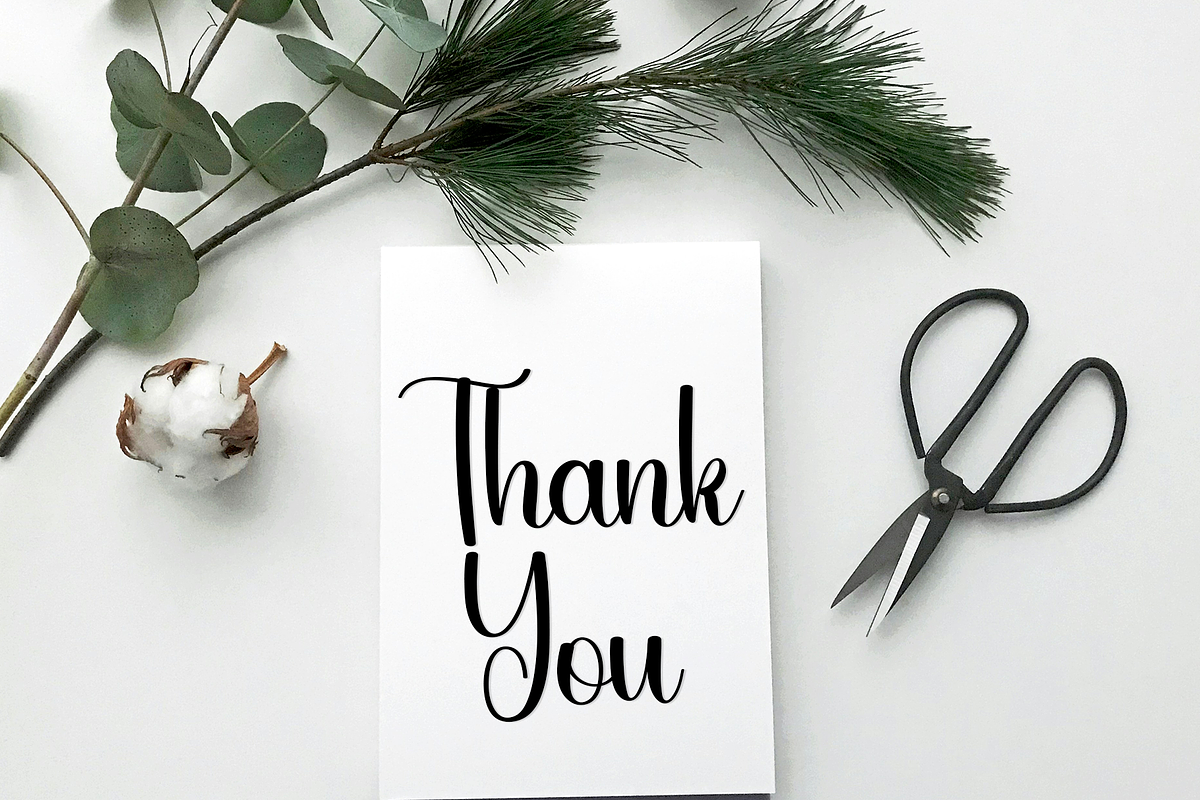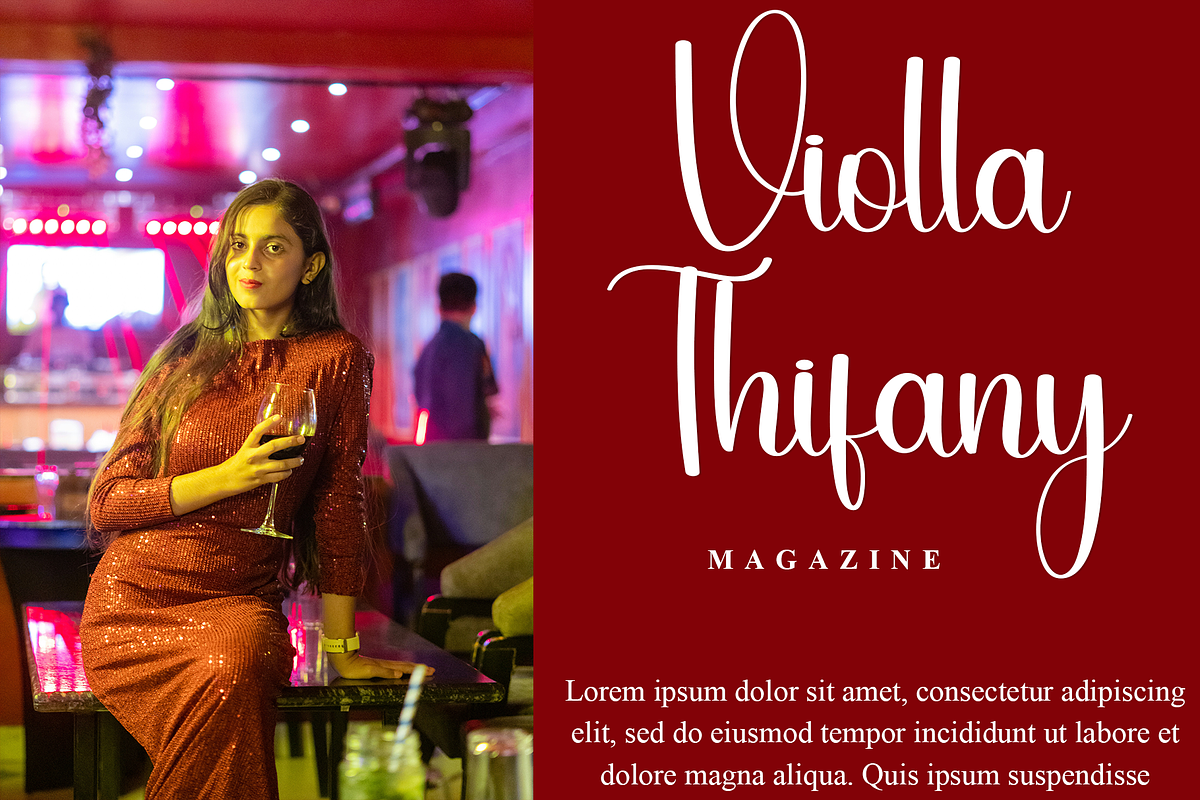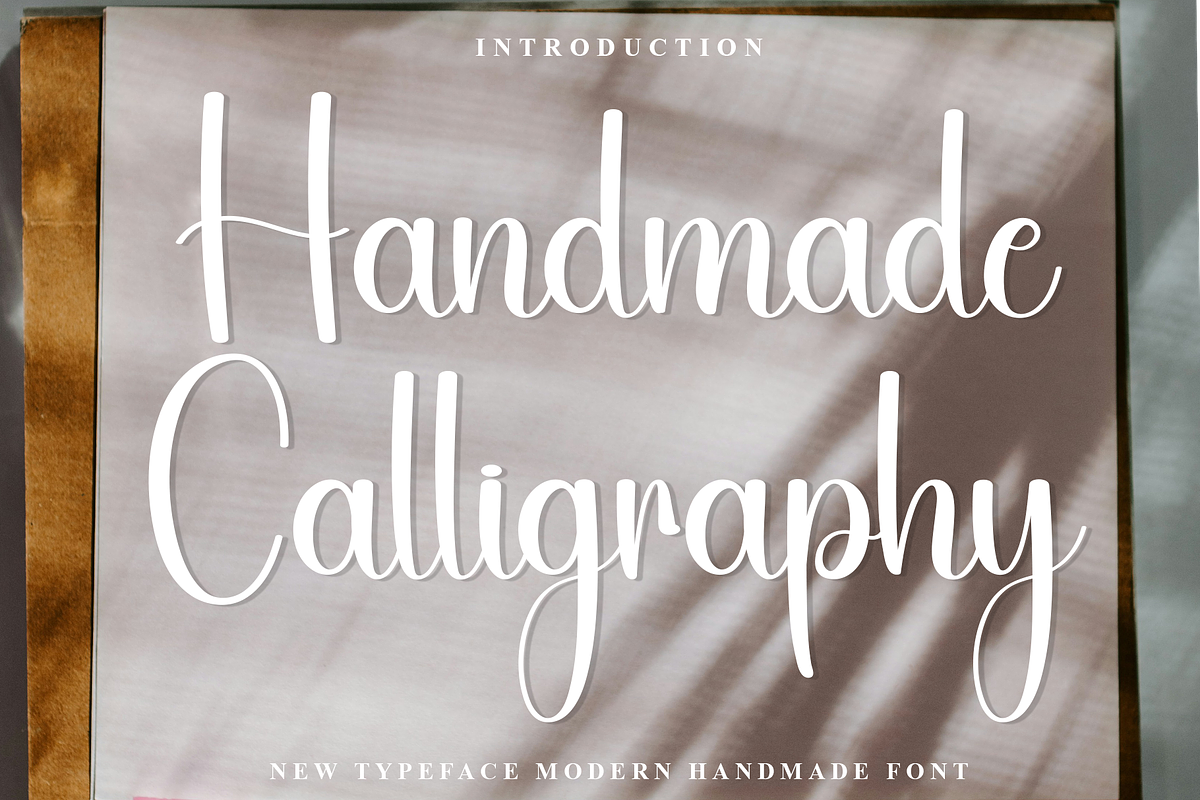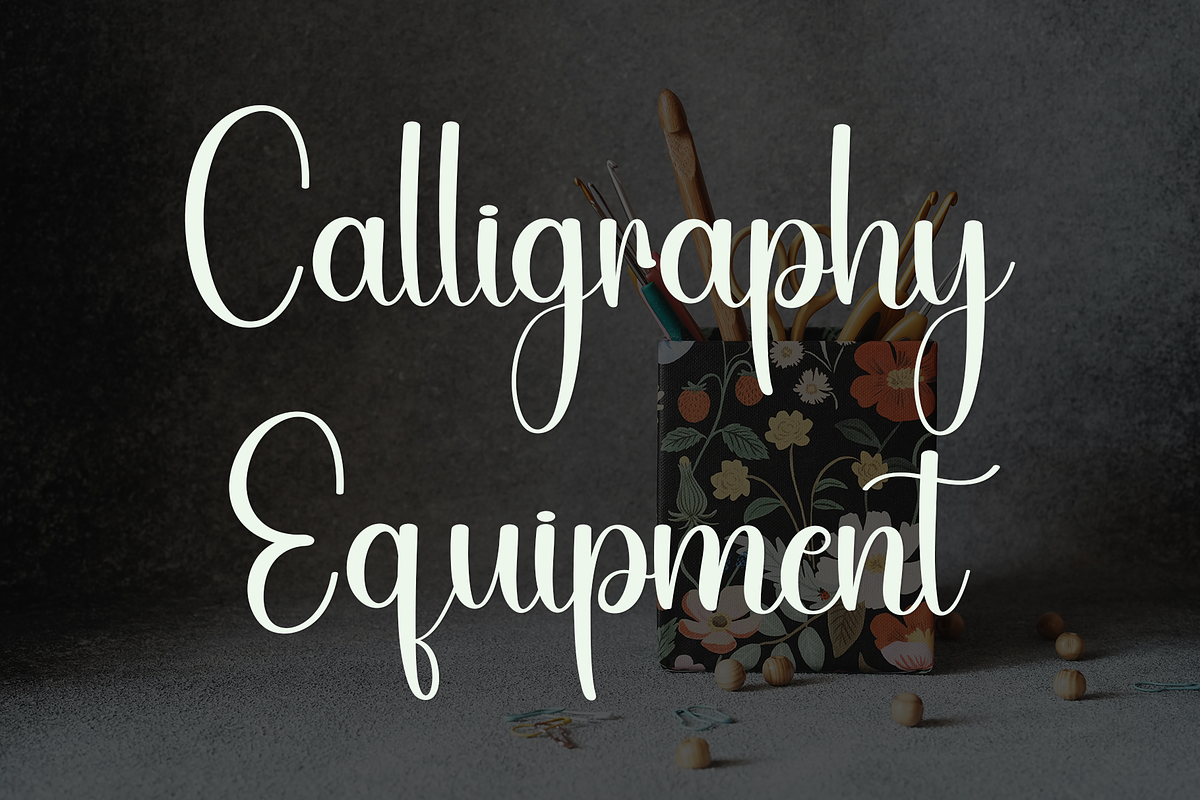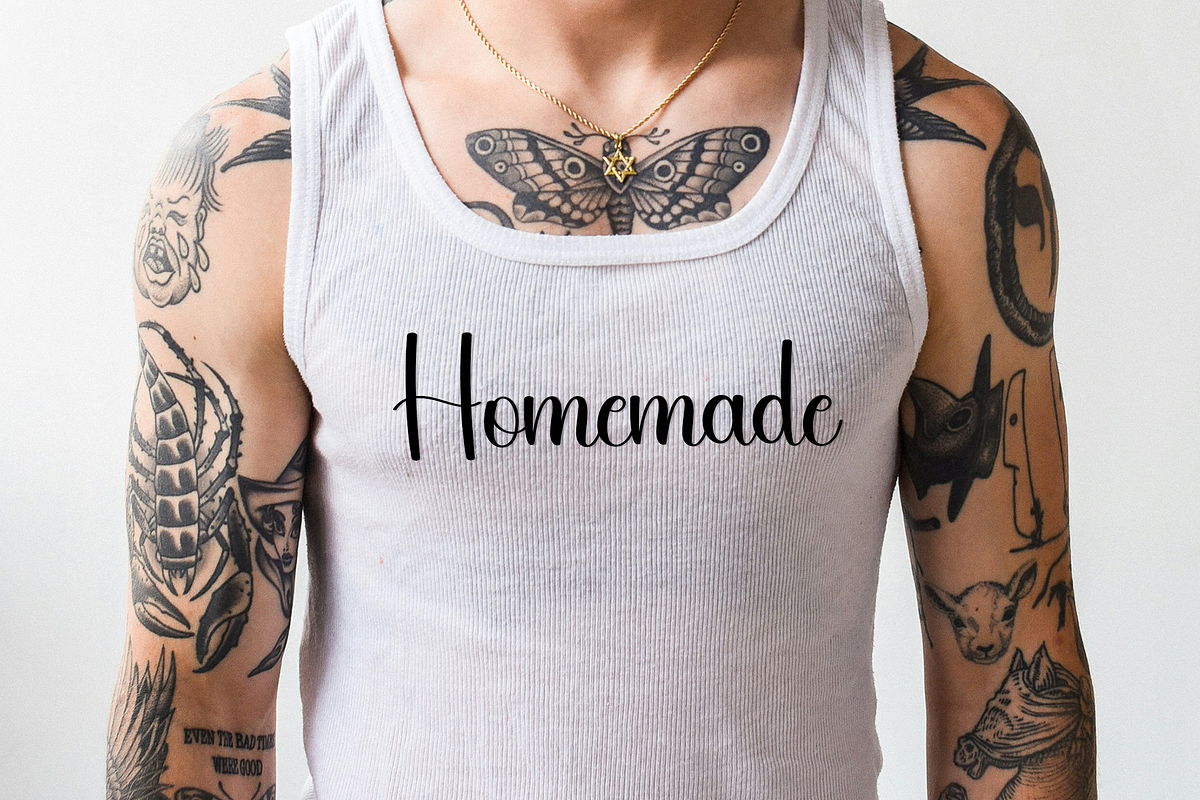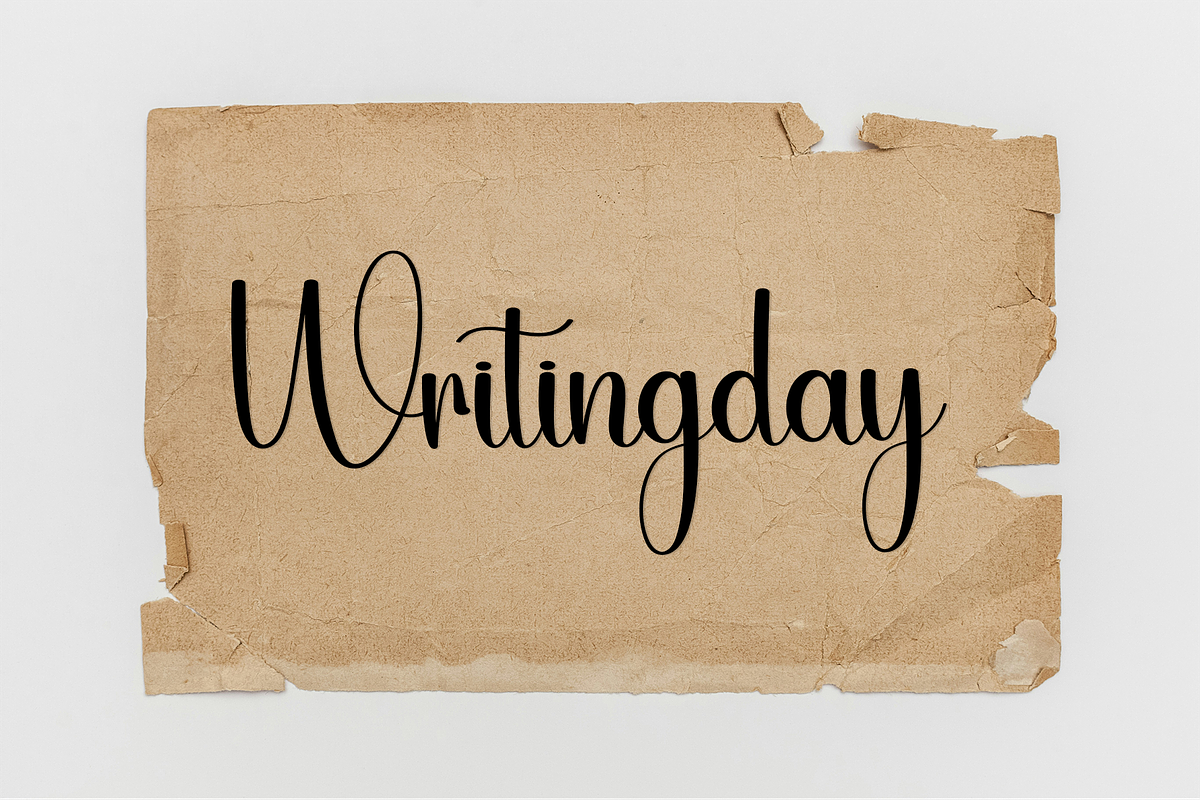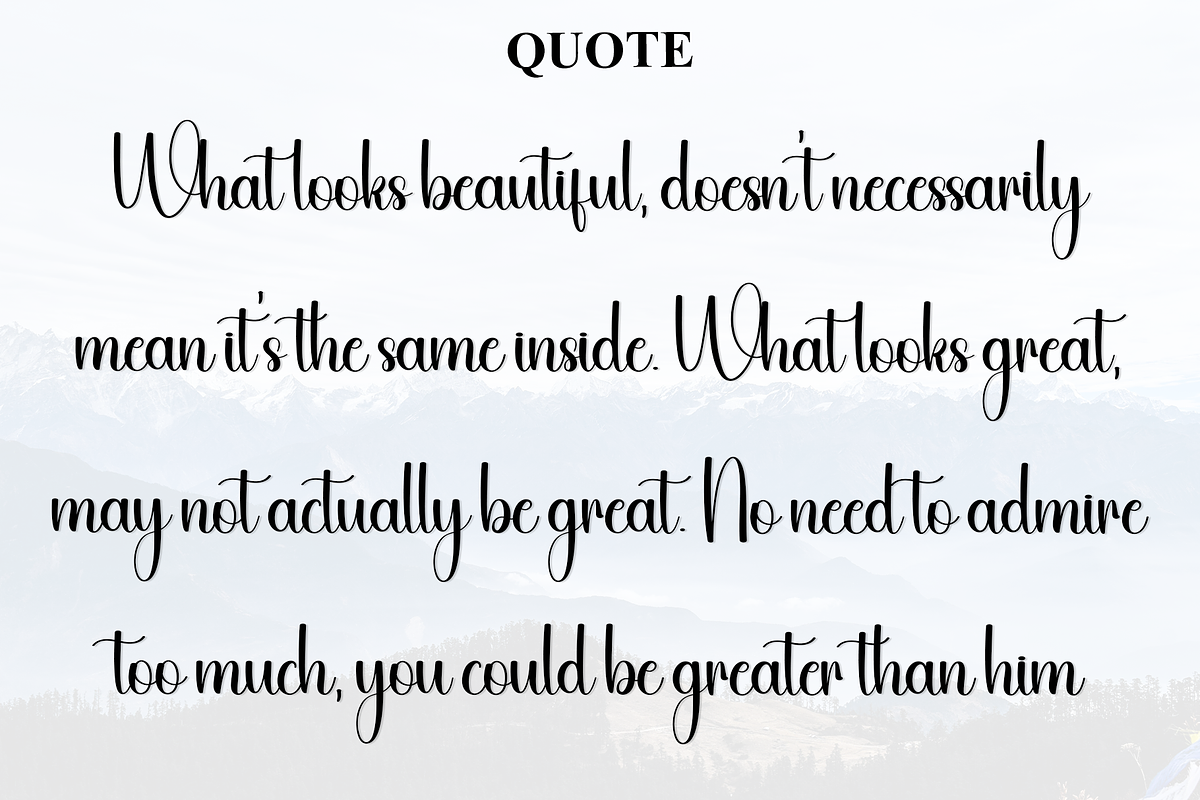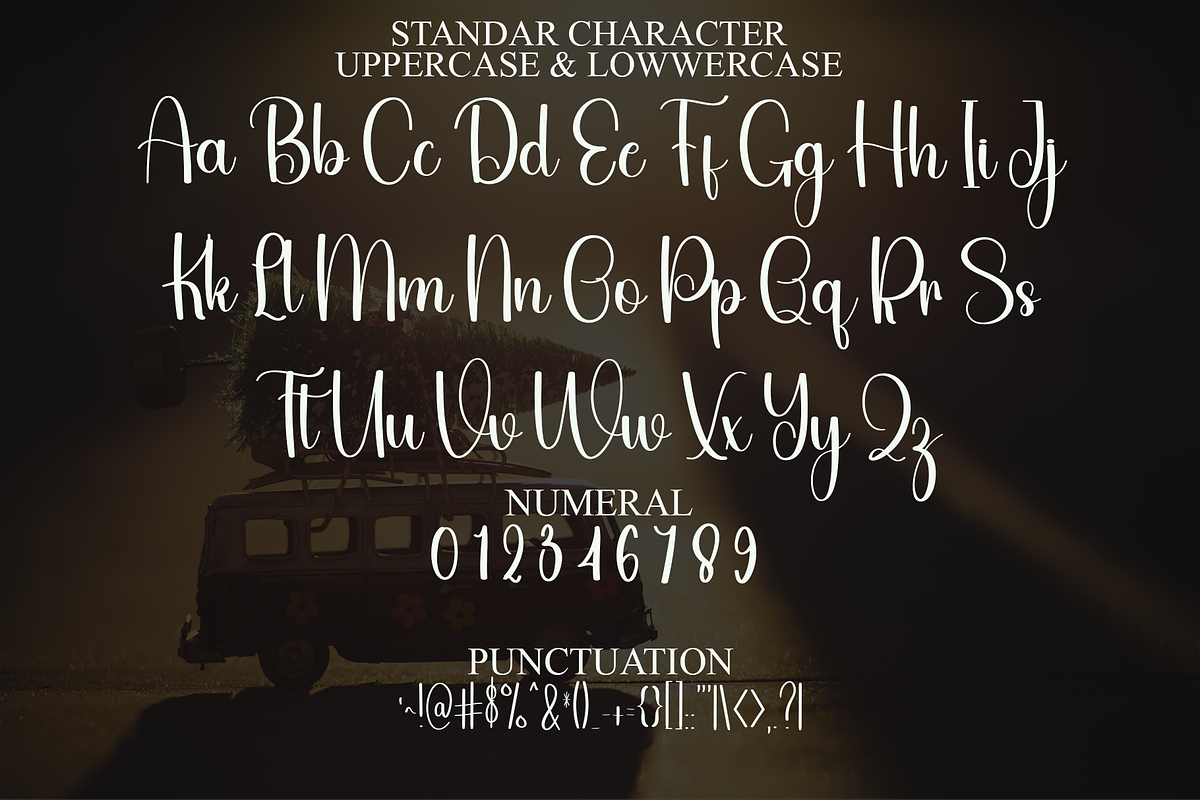
Handmade Calligraphy
Handmade Calligraphy is a beautiful and eye-catching font designed with a soft, unique touch. Its distinctive strokes give it a special character, making it meaningful and versatile for future use. With various characters, it’s perfect for design projects, crafts, and other creative works.